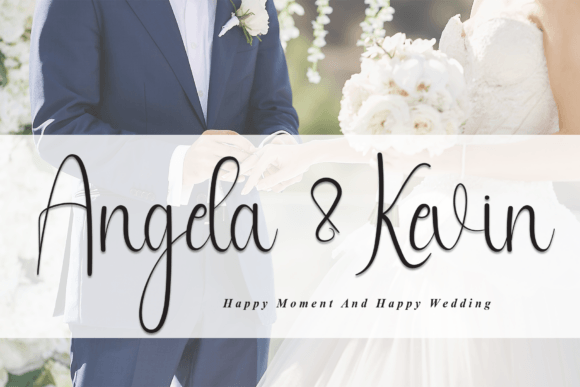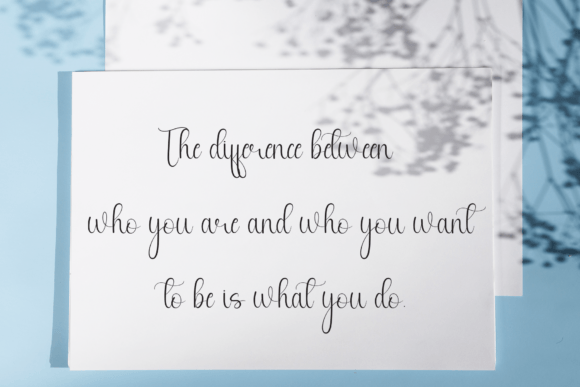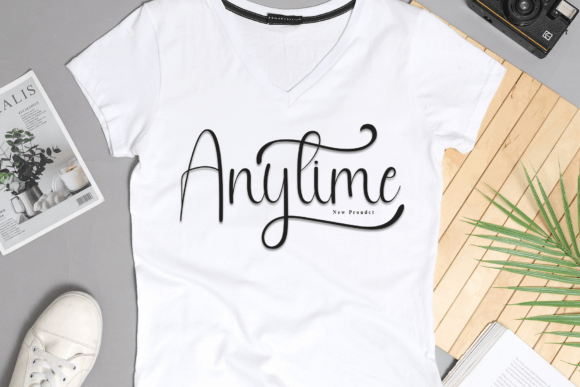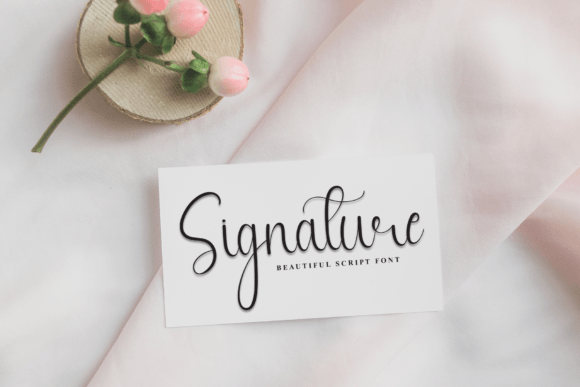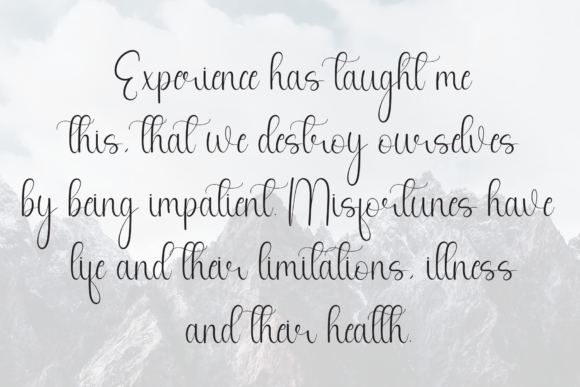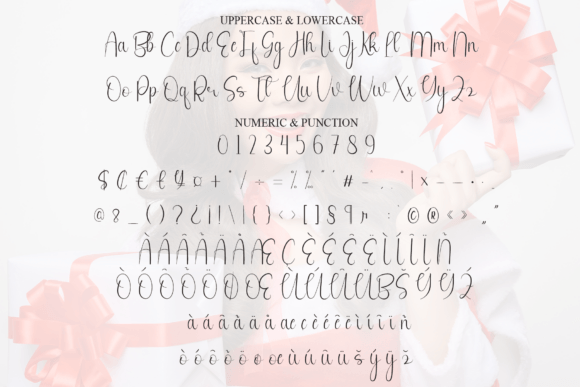
Introduction to Santa Aghata Font
As you sit at your desk, staring at a blank canvas, trying to bring your creative project to life, you know the feeling – the spark of inspiration is missing. That’s when you stumble upon the perfect design resource, and everything falls into place. For designers, Santa Aghata Font is that spark, a beautiful, flowing script font that adds a personal and festive touch to any design.
With its elegant curves and stylish, handwritten feel, Santa Aghata Font is a high-quality font that elevates any design. Whether you’re creating a holiday card with a transparent background or a wedding invitation, this font is sure to make your design stand out. And the best part? It’s available for free download, making it an accessible resource for designers of all levels.
Key Features of Santa Aghata Font
- High-quality design resource ideal for creative projects, including logos, posters, and graphics.
- Unique, elegant script font with a touch of sophistication, perfect for adding a personal touch to designs.
- Designed to be highly legible, even at small font sizes, making it an excellent choice for a wide range of creative projects.
Honest Review: Santa Aghata Font
I recently stumbled upon the Santa Aghata Font, and I must say it’s been a great addition to my design toolkit. As a designer, I’m always on the lookout for high-quality fonts that can elevate my creative projects. Santa Aghata Font delivers.
- ✨ The font’s unique style and flair make it perfect for adding a touch of elegance to my designs.
- ⚠️ The font may not be ideal for large-scale text due to its intricate details.
- ⚠️ The font’s versatility is somewhat limited to specific design niches (e.g., luxury, high-end, or vintage-inspired projects).
Overall, I’m impressed with the Santa Aghata Font. Its high-quality design and free download make it a valuable asset for any designer looking to add some flair to their creative projects. With some creative planning, I’m confident I can push the font’s limitations and get the most out of it.
The Santa Aghata Font is suitable for a variety of creative projects, including brochures, flyers, and business cards. Its high-quality design makes it an ideal choice for presentations and documents that require a professional touch.